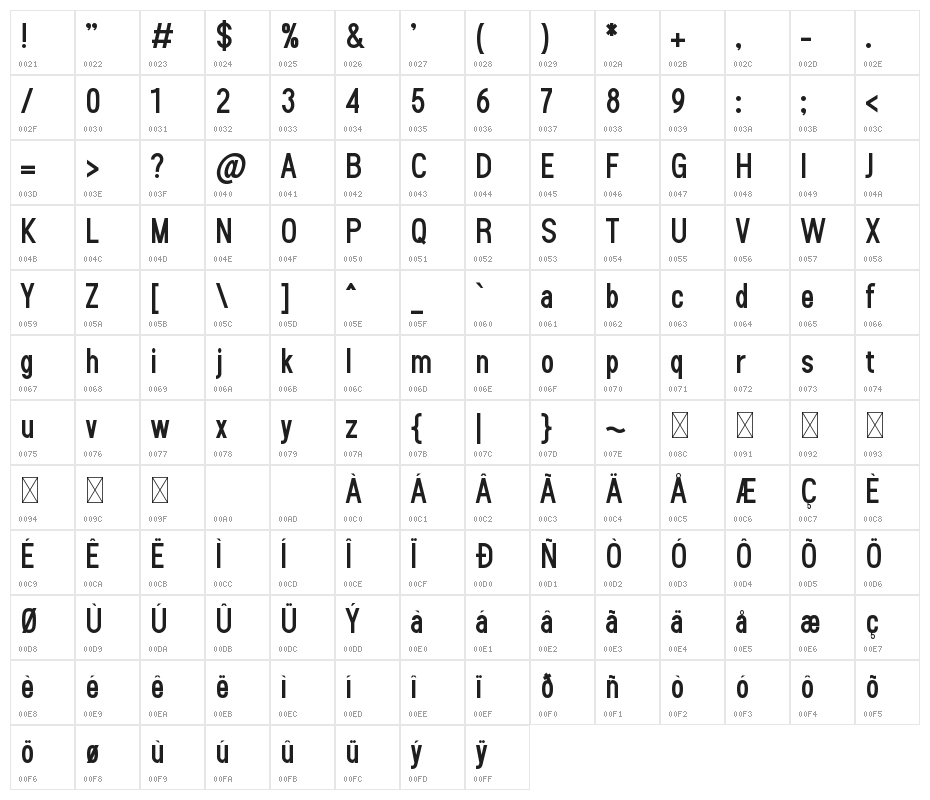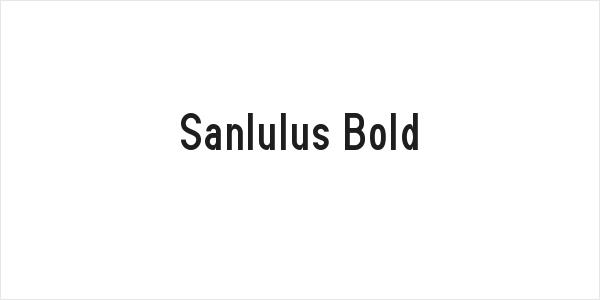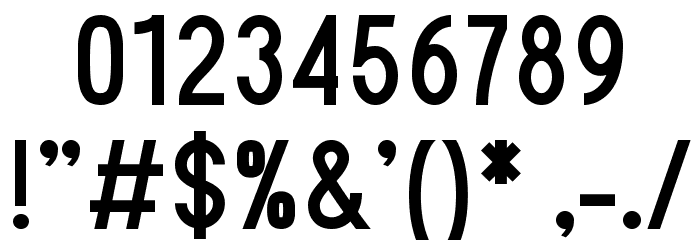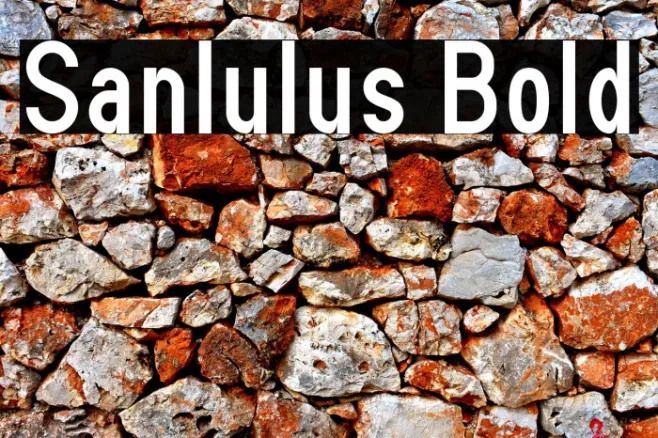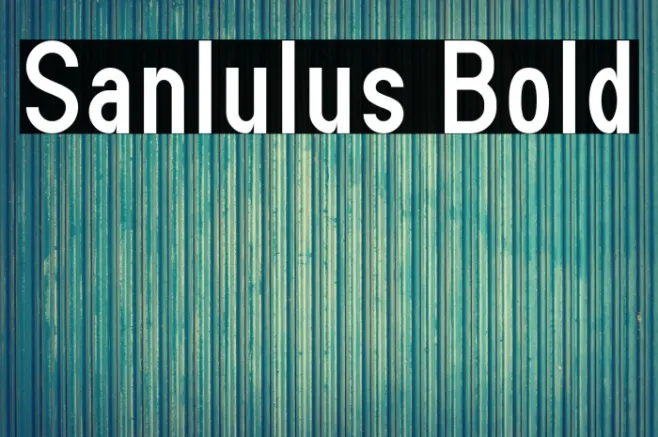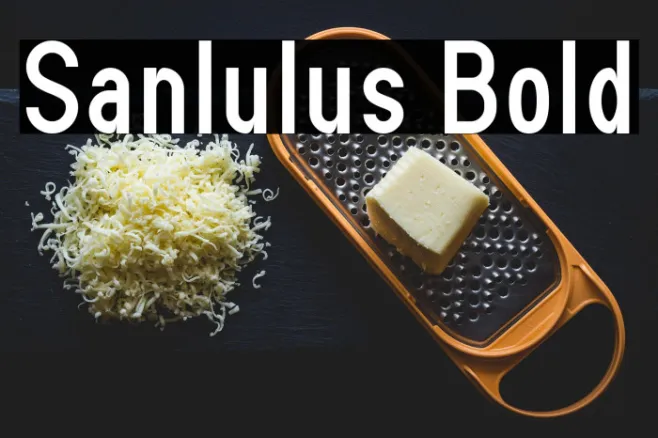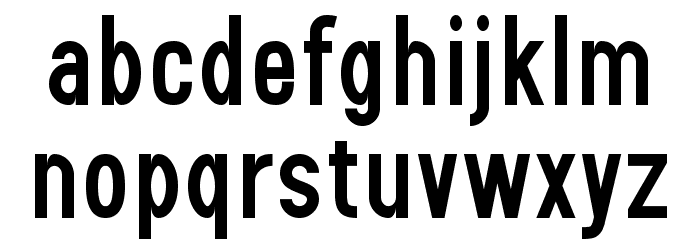
Sanlulus Bold Font
Sanlulus Bold Description
This typeface features a bold and assertive design, characterized by clean, straight lines and a modern aesthetic. The uppercase and lowercase letters are well-balanced, with consistent stroke widths that convey strength and clarity. The numerals are straightforward and align seamlessly with the overall style, making them easy to read. Special characters are designed with the same boldness, ensuring they stand out without overpowering the text. This font is versatile, suitable for a range of applications where a strong visual impact is desired.